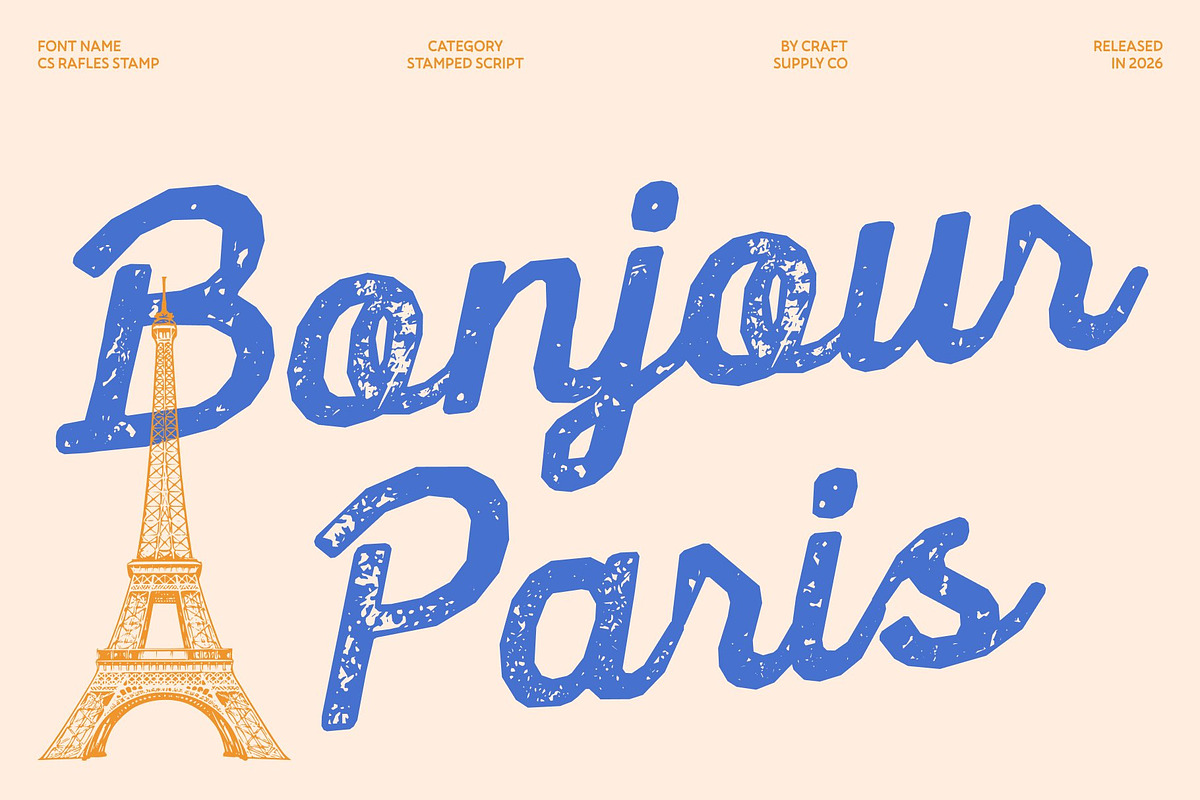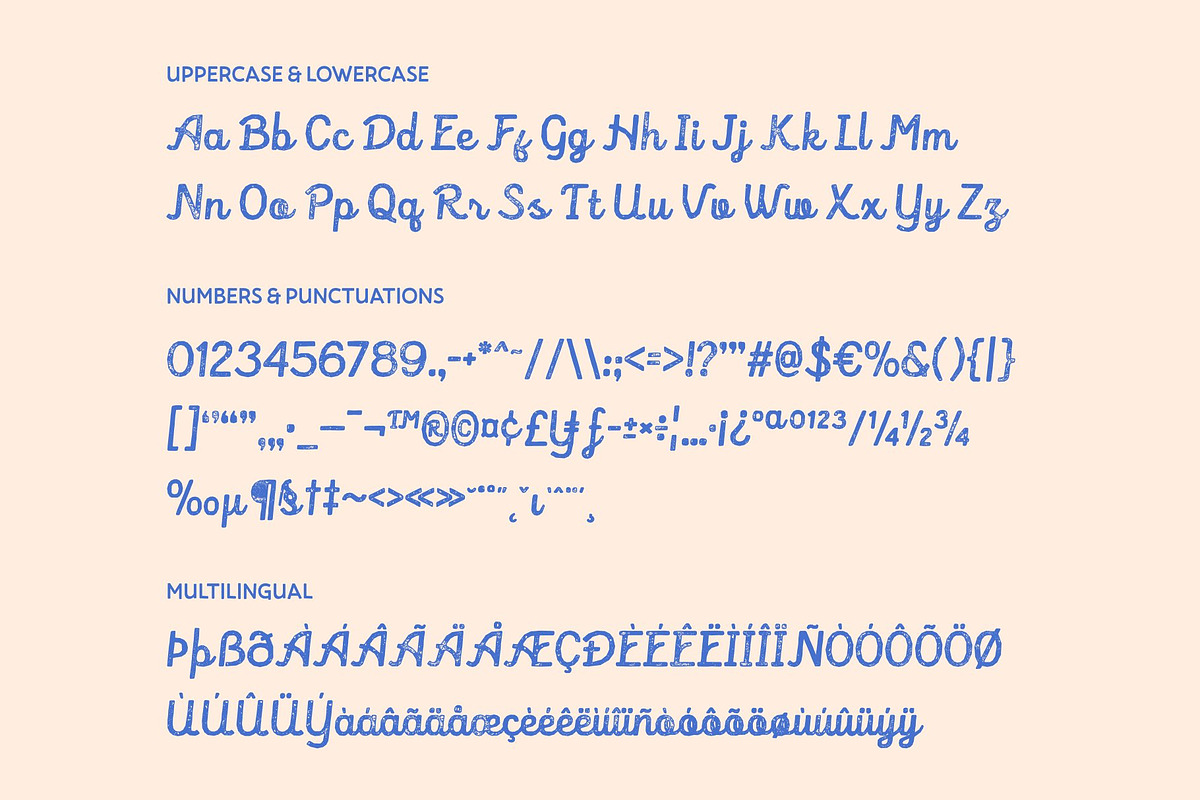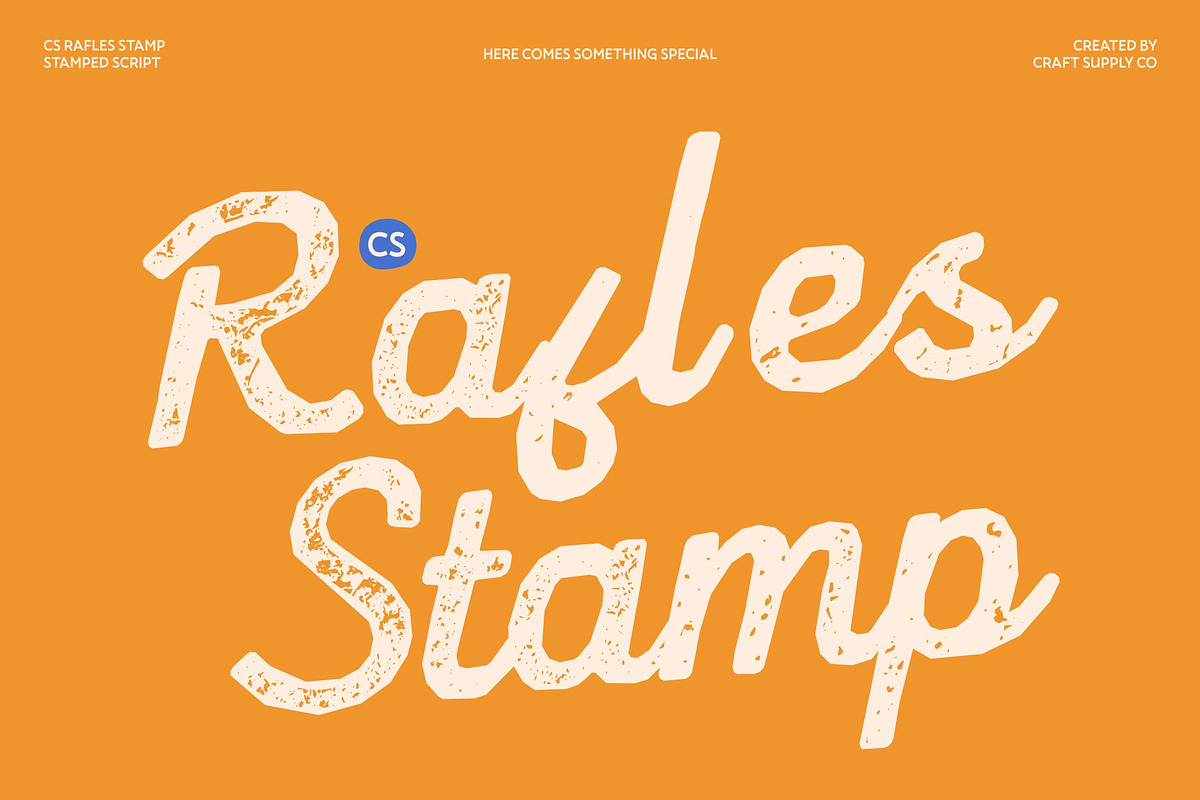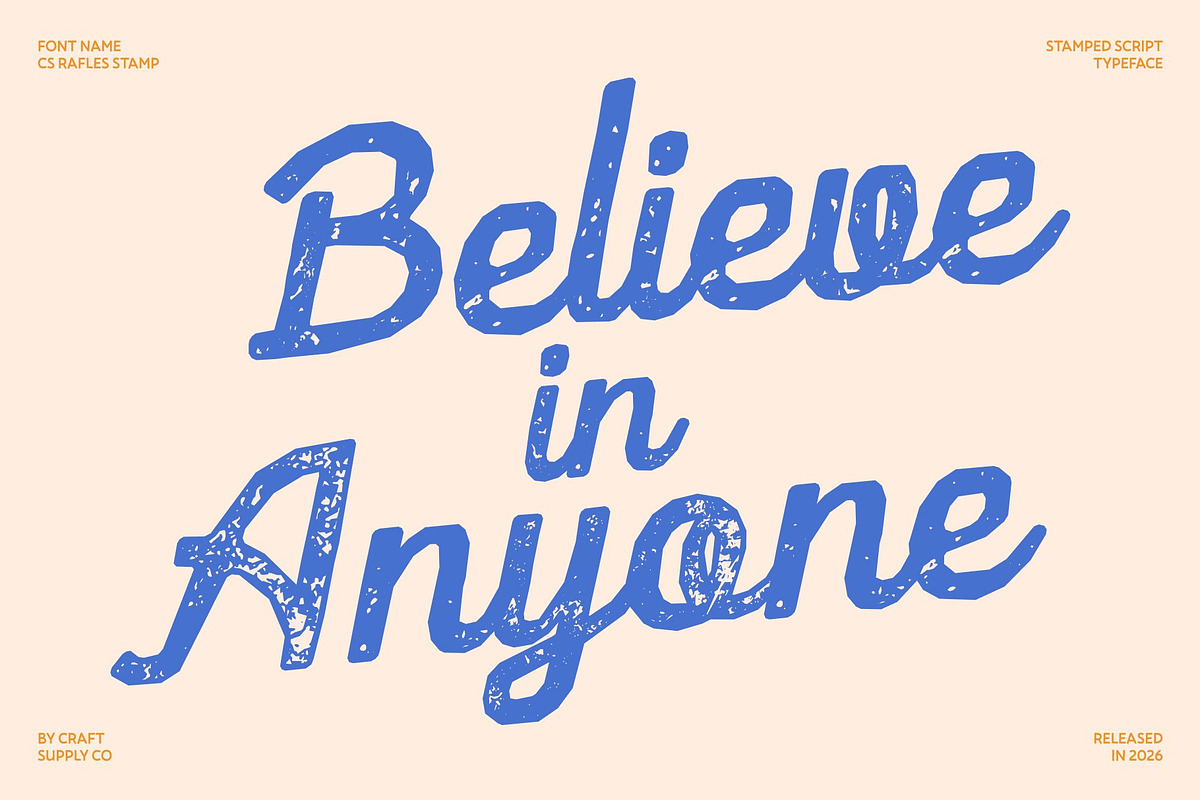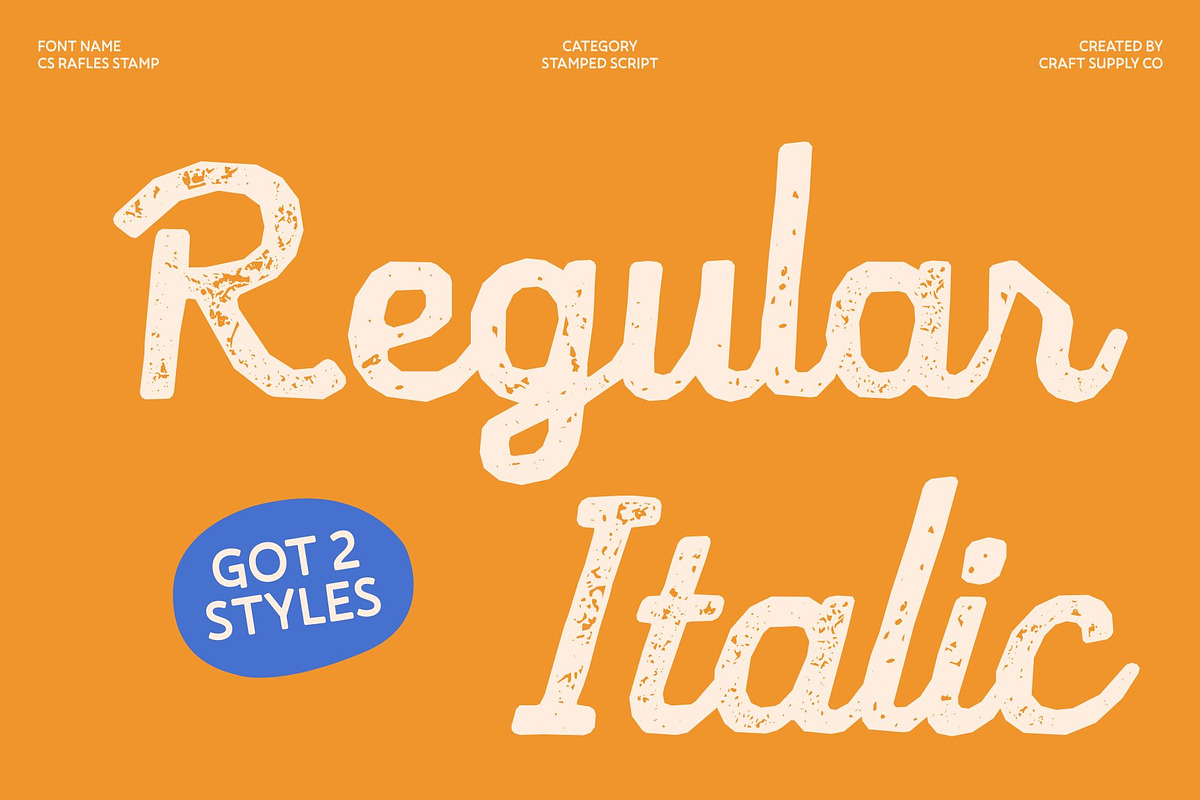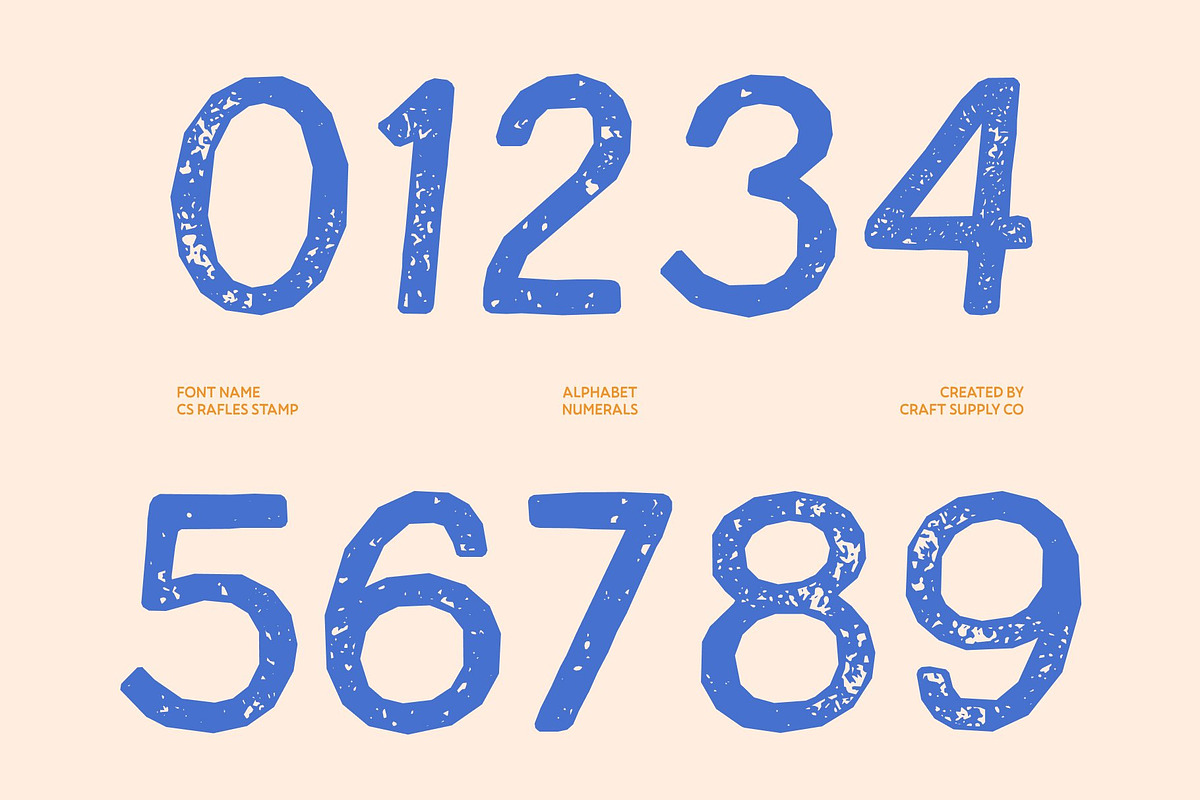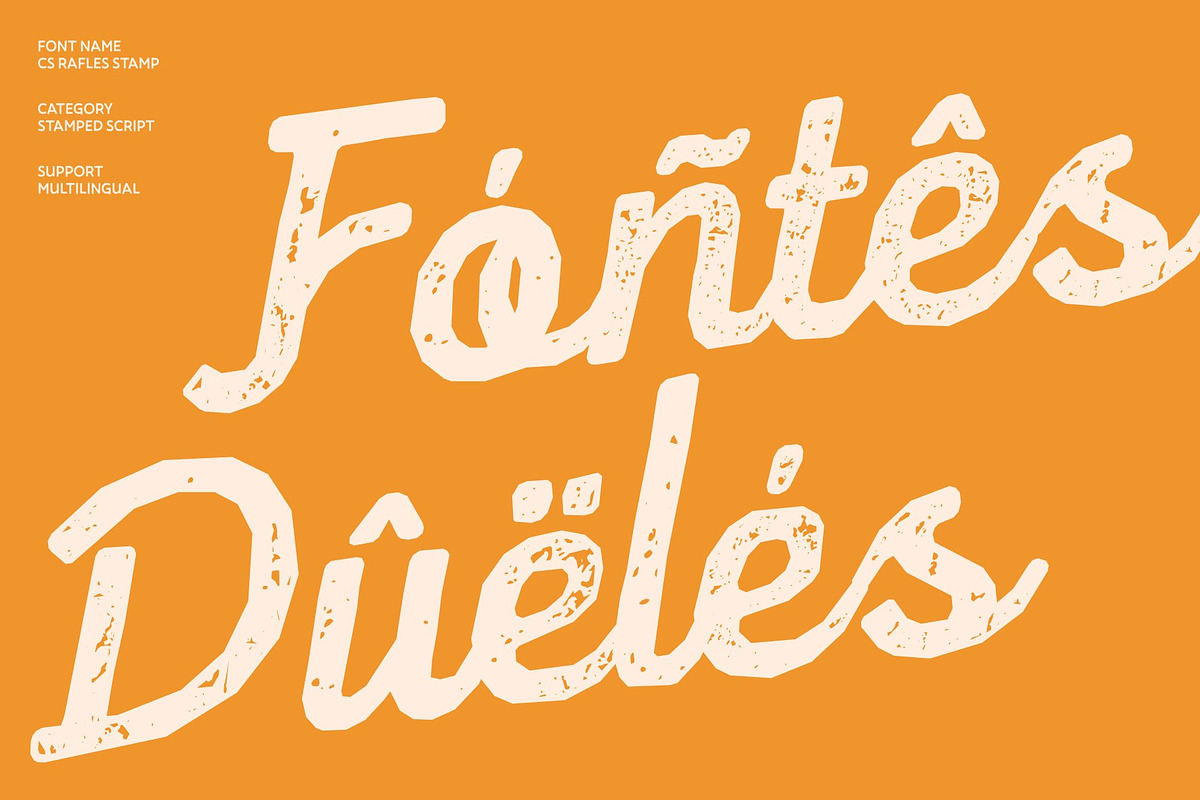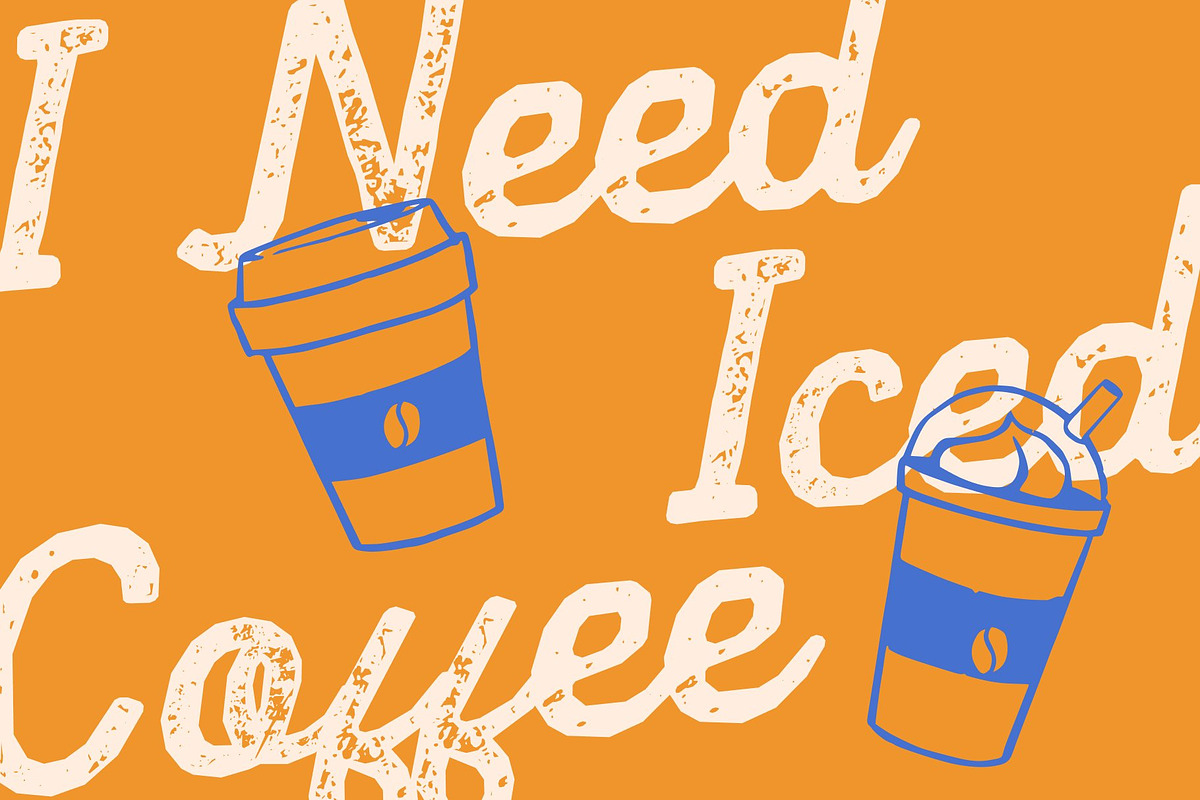
CS Rafles Stamp
CS Rafles Stamp – Modern Script Font: Where Timeless Elegance Meets Vintage Charm
Smooth Flowing Cursive with Decorative Grace This is a modern script font that showcases smooth flowing cursive letterforms designed to evoke elegance, refinement, and charm. Its graceful strokes and decorative flourishes create a sophisticated visual rhythm filled with warmth and timeless beauty. Every character feels expressive and handcrafted, making the font perfect for projects that seek a stylish and nostalgic atmosphere.
Classic Elegance with Romantic Personality Blending contemporary script styling with classic calligraphic influence, its delivers a typographic voice that feels elegant, artistic, and full of character. The flowing connections and refined curves enhance its luxurious personality while maintaining readability and visual harmony across creative compositions.
Stamp Texture with Vintage Artistic Appeal This font introduces a rough handcrafted texture inspired by traditional print techniques. The slightly uneven finish adds vintage character, artistic depth, and authentic old-design charm to every letter, enriching the elegant script forms with warmth and expressive individuality.
Perfect for Retro Branding, Posters, and Nostalgic Design This font perfect for retro posters, bar menus, nostalgic branding, packaging, invitations, labels, and vintage-inspired creative projects. Its flowing script forms and textured detailing make it ideal for logos, signage, promotional graphics, and visual identities that seek a timeless and old-fashioned charm.